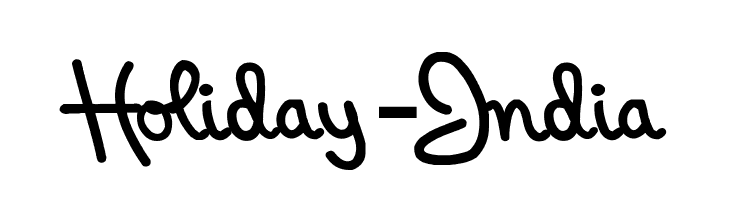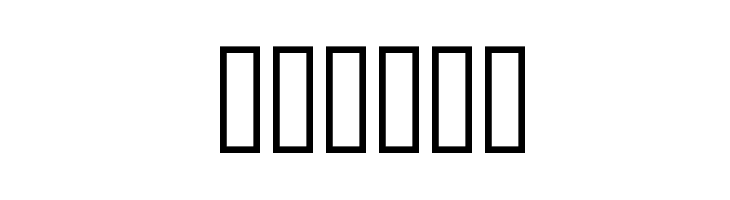
( Fonts by Dennis Ludlow - Sharkshock )
A playful, handwritten font with bold, rounded characters and a whimsical style.
( Fonts by AEnigma - www.aenigmafonts.com )
A futuristic, rounded font with smooth curves and geometric precision.
A playful, bold outline font with bubble-like, rounded shapes.
( Fonts by Wojciech Kalinowski )
A bold, oblique monospaced font with a modern and dynamic style.
A bold, expressive script font with a handwritten style.
( Fonts by RaisProject )
A playful, bubble-like font with rounded characters and a whimsical style.
( Fonts by Maulana Creative )
A bold, rounded font with a playful and friendly appearance.
( Hank Gillette )
A bold, theatrical slab serif font with a vintage flair.
( deFharo - Fernando Haro - defharo.com )
A bold, serif font with strong, uniform strokes and pronounced serifs.